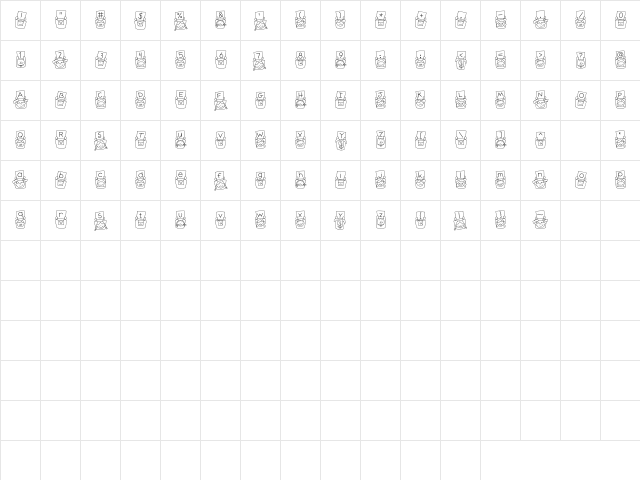
CK Grandstand Regular
Design Context for CK Grandstand Typeface
CK Grandstand is a composed and adaptable typeface that performs quietly and consistently across a wide range of design contexts.